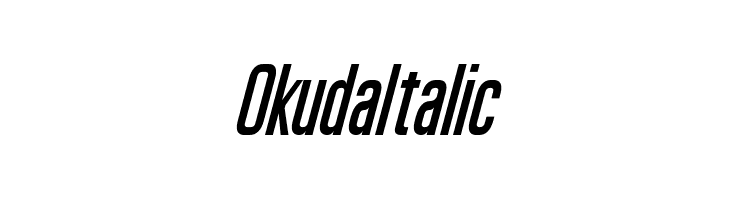
A bold, modern font with clean lines and a slightly condensed style.
A bold, modern font with thick, uniform strokes and strong presence.
A bold, modern font with strong geometric lines and uniform weight.
A bold, italicized font with a dynamic and energetic style.
A bold, italicized font with strong, dynamic strokes and a modern style.
A modern italic font with sharp lines and a dynamic slant.